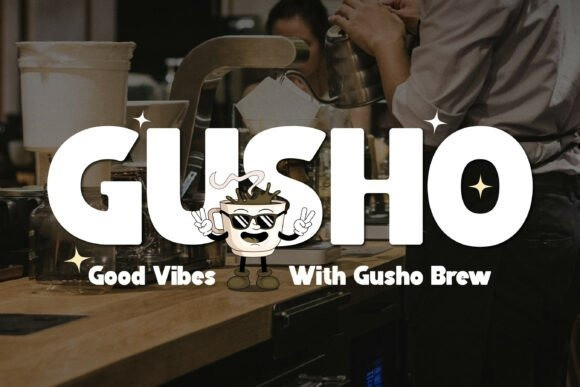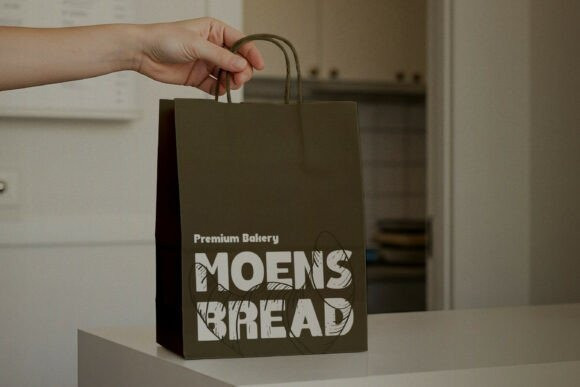
Gruno Font
Gruno Font is a bold sans serif display font designed to deliver strong visual impact with a modern and confident character. Featuring thick strokes, solid letterforms, and clean geometry, Gruno is built to stand out instantly while maintaining excellent readability. This font is perfect for designers who need a powerful typographic voice.